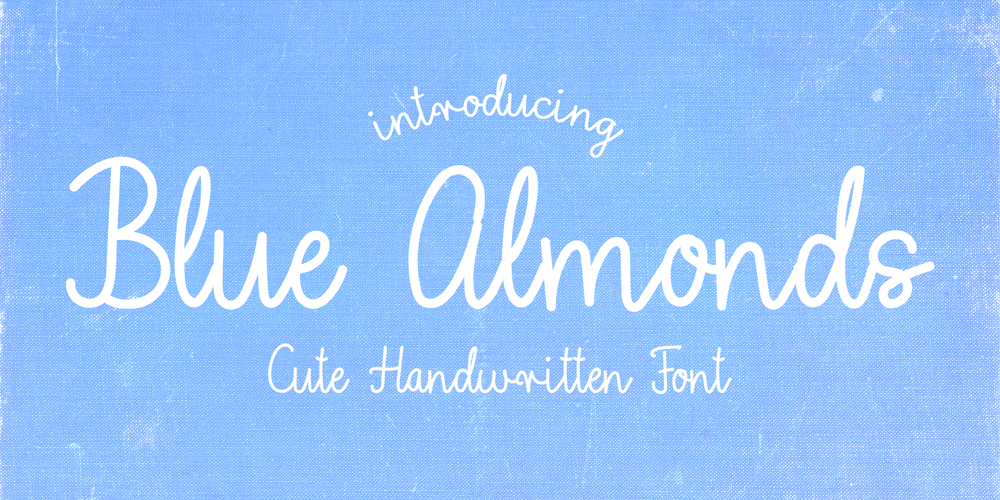
Blue Almonds
Blue Almonds font
Blue Almonds Font Family was designed by Wiktoria Matynia and published by Creative Corner. Blue Almonds contains 1 styles and family package options. Thank you for visit! Blue Almonds is a cute handwritten font, gives a vibe of natural happines and positivity, a little dreamy. It’s a good choice for themes like: lifestyle, blogs, products, food, cosmetics, newspaper titles, signatures, travel, quotes and many many more.